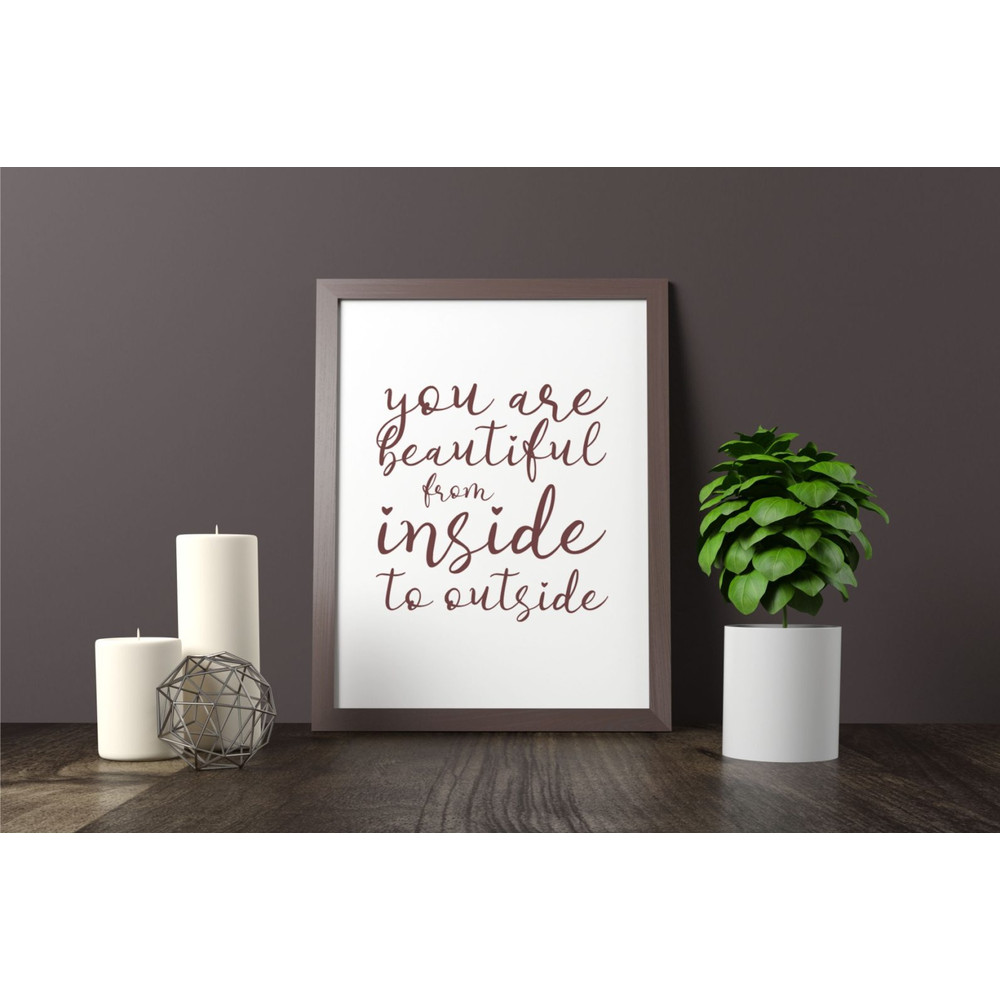
Love History Cute Calligraphy Trending Fonts - Digital Font
This font is made very carefully to produce an original hand touch so that it can give a natural impression on the design, it is very suitable for invitations, logos, brochures, business cards, photography, and for other design needs.
2. Uppercase & Lowercase characters
3. Opentype features: stylistic alternates, ligature, titling, swashes, stylistic sets